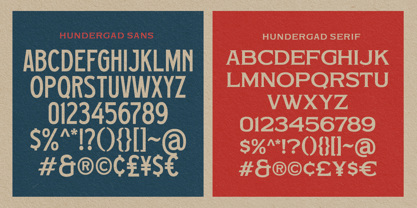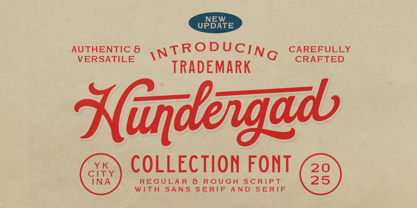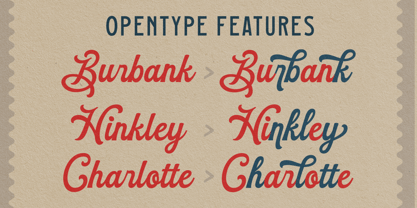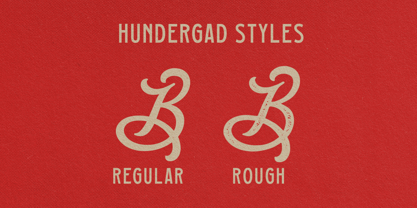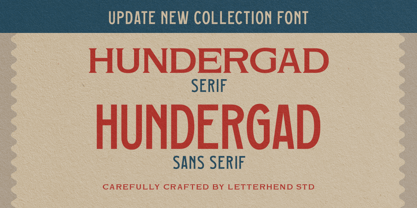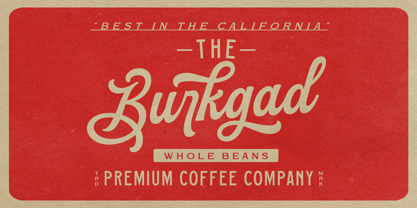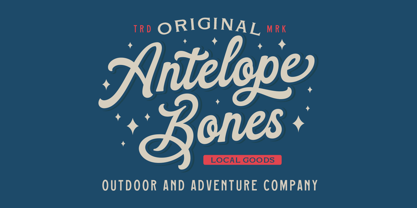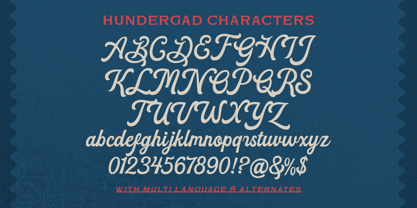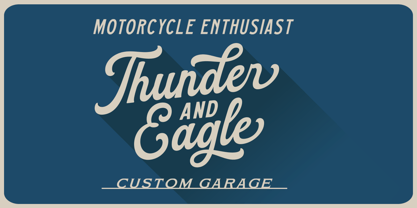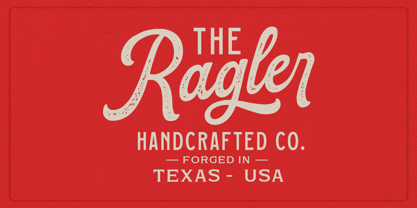
Hundergad
by Letterhend
The Hundergad Font Family was designed by Hendry Juanda and published by Letterhend. Hundergad contains 4 styles and family package options.
Hundergad is now updated from a single script font into a complete vintage-inspired collection. This new version includes not only the original bold script but also matching sans and serif fonts, both in regular styles—perfect for logos, packaging, labels, invitations, apparel, and more. With its handcrafted look and classic charm, Hundergad brings authenticity and versatility to any creative project.
What's new update? Sans & Serif for pairing the script
Features :
• regular & rough
• uppercase & lowercase
• numbers and punctuation
• multilingual
• ligatures
• alternates
• swashes